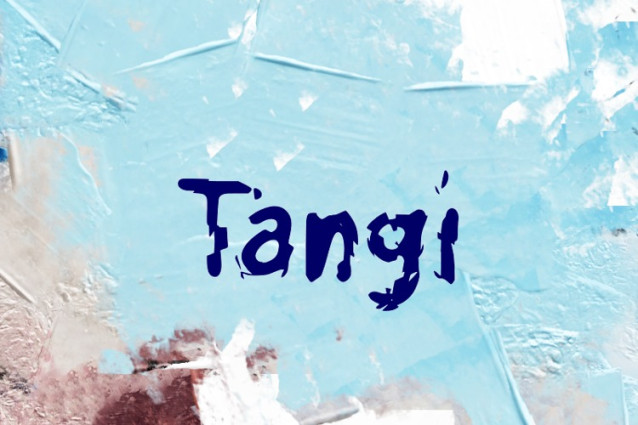
Tangi Font
Tangi Font,  Perfectly fit for branding, logo, wedding things, greeting cards, fashion, lookbook, marketing promotion, anytime you want to look fancy elegant but still casual.